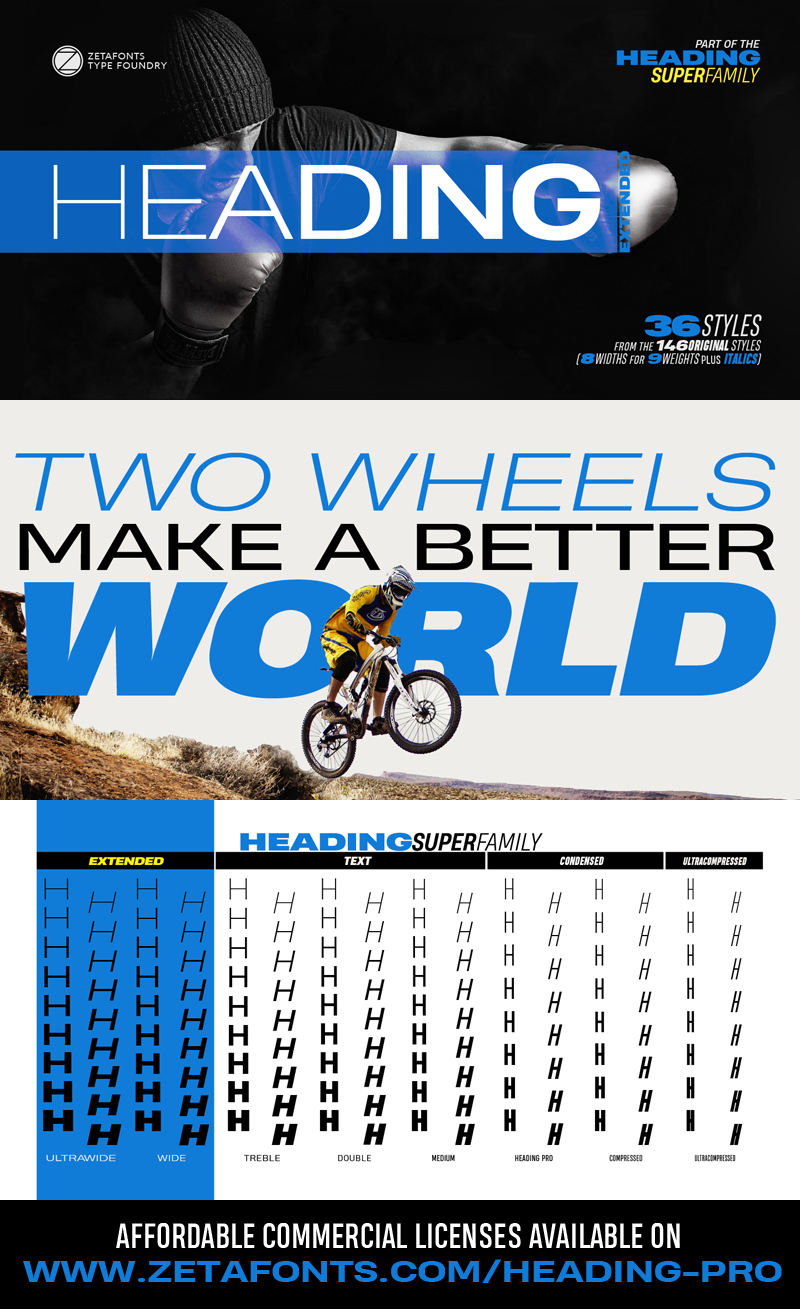
Free download Heading Pro Wide Font
Preview and download Heading Pro Wide Font. Created by Zetafonts in Basic Sans serif styles with Free for personal use license.